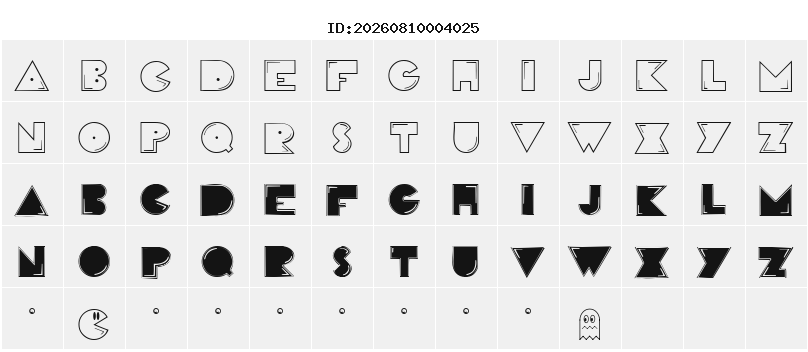
PacFont Preview
• Font Name: PacFont
About PacFont.ttf
PacFont.ttf is a modern, elegant sans-serif font designed for ultimate readability and visual harmony. Perfect for branding, headlines, web design, and print materials.